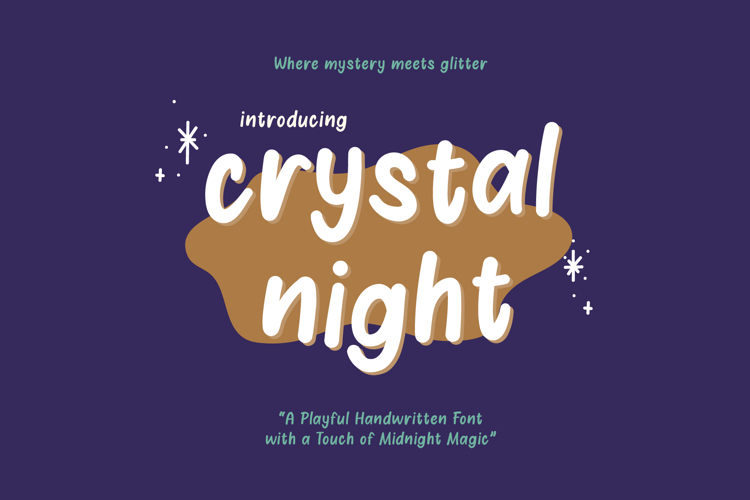
Introducing Crystal Night, a playful handwritten font where mystery meets glitter. Each letter glows with a soft charm, making your text look warm, whimsical, and naturally alive.
Perfect for logos, quotes, packaging, invitations, social media posts, greeting cards, and any design that needs a spark of midnight magic. With smooth curves and natural flow, Crystal Night adds both personality and legibility — making it ideal for both professional designers and creative dreamers.
Let every word sparkle a little magic — with Crystal Night 🌙